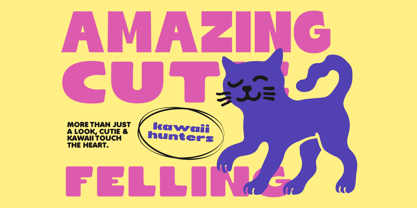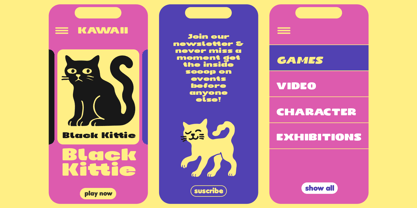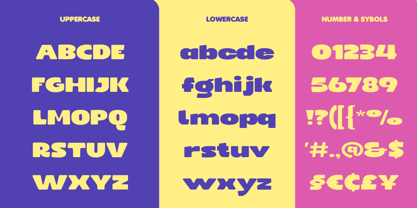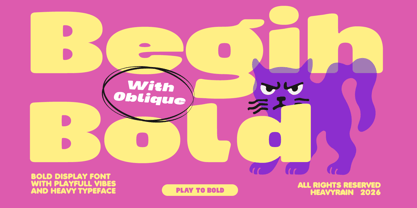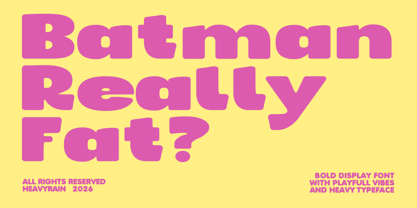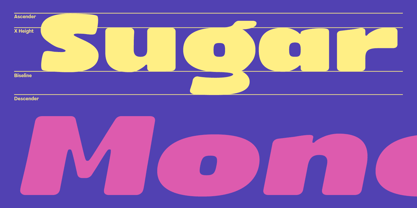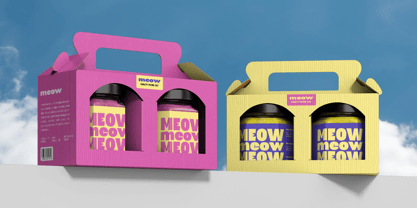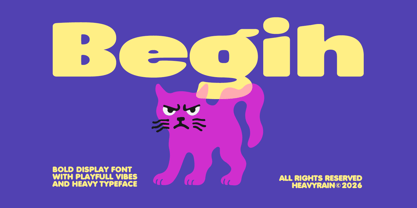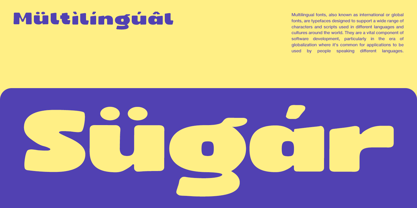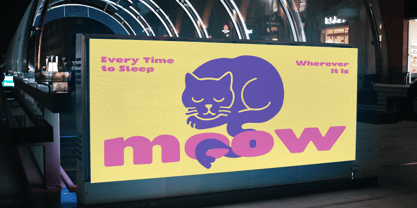
Begih
Begih is a bold display typeface full of playful energy and irresistible charm. Inspired by the cheerful world of food, colorful packaging, and modern branding, it features chunky rounded letterforms that create a warm, friendly, and approachable personality.
Designed to make headlines stand out, Begih combines bold proportions with soft curves for excellent readability and strong visual impact. Its lively appearance makes it an ideal choice for food brands, cafés, restaurants, bakeries, beverage packaging, children's products, posters, logos, and promotional materials that need a fun and memorable voice.
Whether you're creating a vibrant snack brand, a playful dessert menu, or eye-catching packaging, Begih helps your designs feel fresh, inviting, and full of character.
Perfect for branding, packaging, editorial headlines, advertising, social media, merchandise, and any creative project that celebrates bold typography with a playful twist.